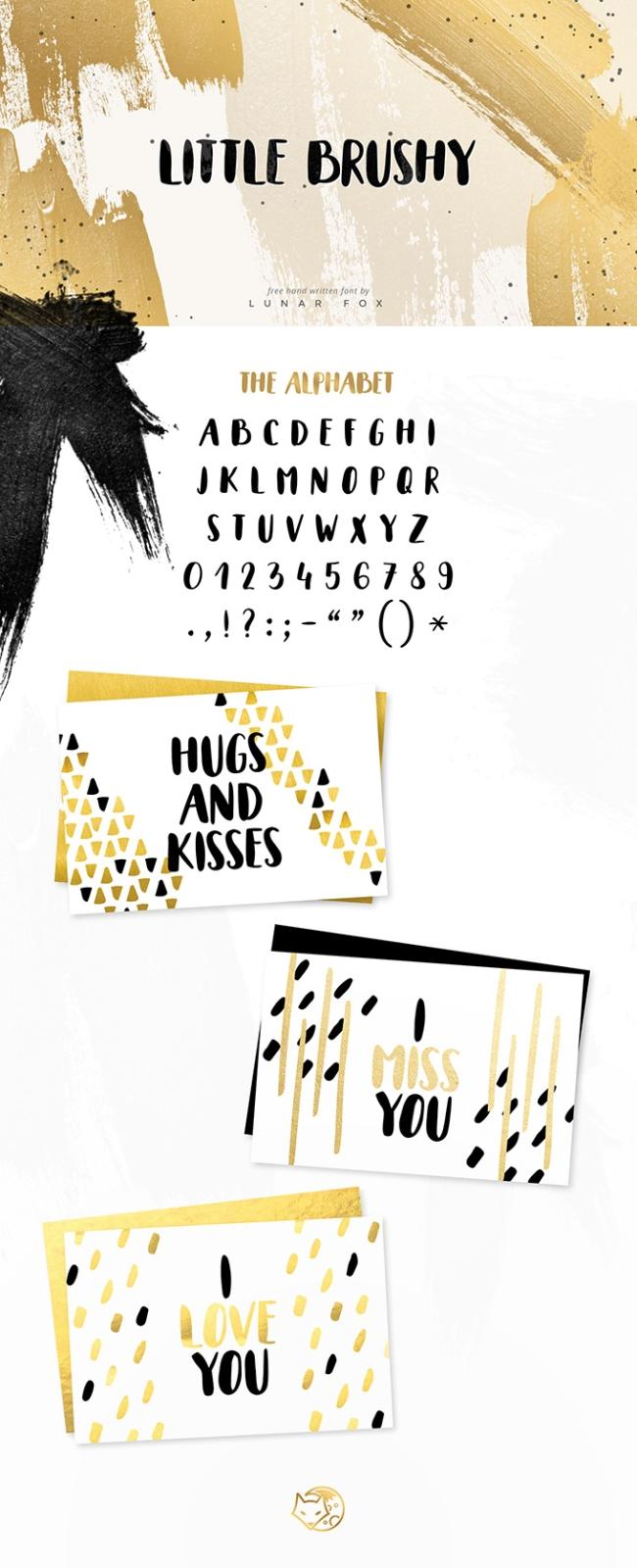
Little Brushy Font
Meet the Little Brushy, a new hand-lettered font created to make your headlines look incredibly nice and friendly. Add a genuine hand-crafted feel to your work with our new freebie!
The font includes all essential symbols you need for a free self-expression. Compose your own design stories with such an adorable means of expression! Applying it to your headlines and web design projects will be a great idea. Also, its curls make fall head over hills in love with them, an indisputable advantage one has a chance to obtain with this font!